If you’re going to try to match fonts together, these modern calligraphy font duos will give you some great inspiration!
I have a confession to make. I am absolutely terrible at matching fonts. For whatever reason, I just don’t have the eye for it. I try to find two fonts that look good together (and goodness knows I’ve got plenty to choose from) but for whatever reason, everything I put together just looks… off. Not quite right somehow.
Luckily for me, there are amazingly talented people out there who know exactly how to put fonts together, and the beauty of matching fonts becomes an easy reality for people like me. And thank goodness there are a ton of ready-made font duos to choose from!
This post is all about modern calligraphy font duos, specifically, but there are plenty more styles of font duos, some are more playful, while others have elegant signature fonts.
I love modern calligraphy. It’s especially popular when paired with farmhouse style decorating and similar themes, but this style of font is excellent for adding an element of fun and bounciness to any situation. It’s both classy and lively, with so many variations that you could sort through lists of fonts for hours. Plus, you can pair them with all kinds of other fonts: just have a look below for proof!
I hope that whatever your next project is, you’ll find the perfect duo below. Happy hunting!
Let’s get on to my awesome list of modern calligraphy font duos!
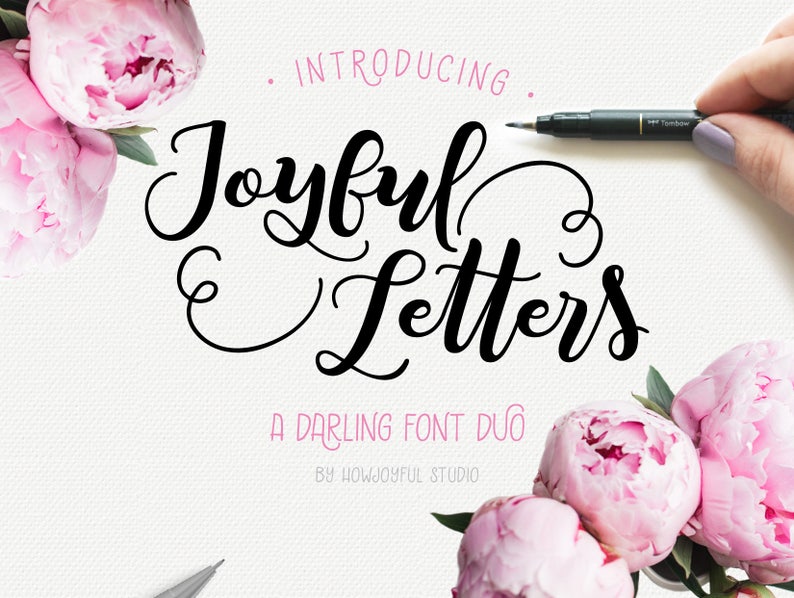
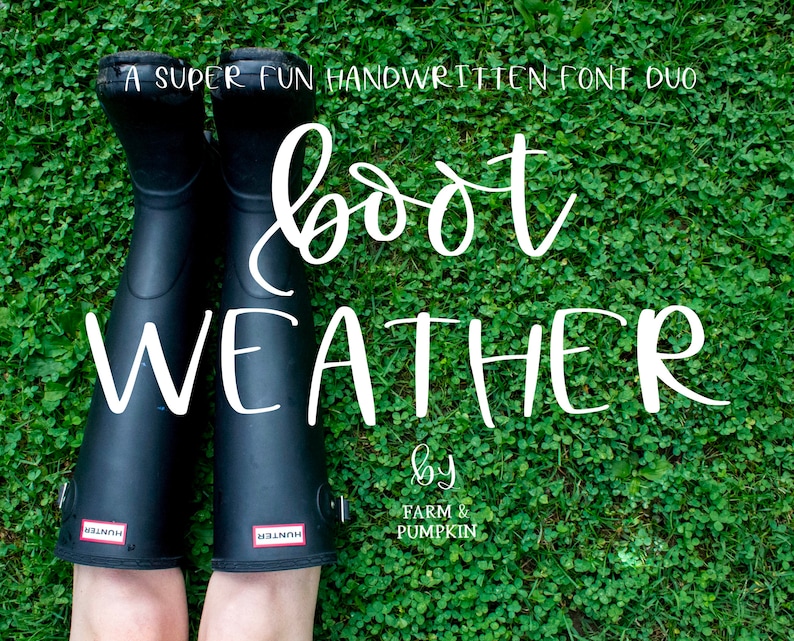
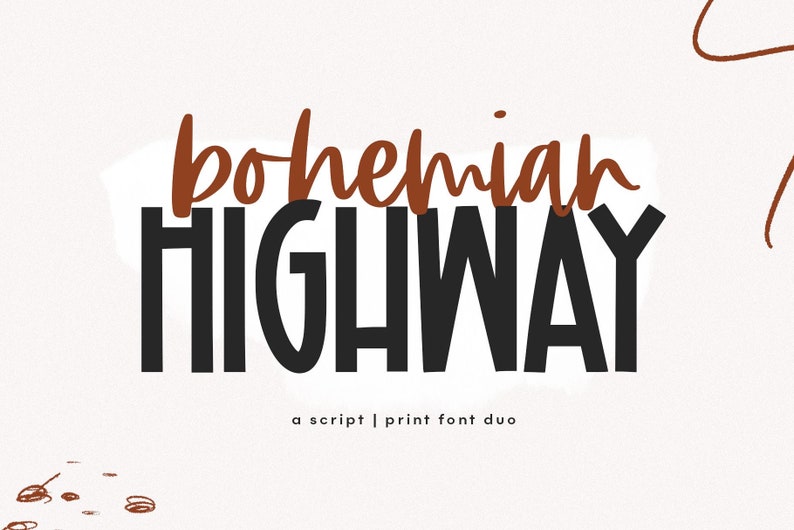
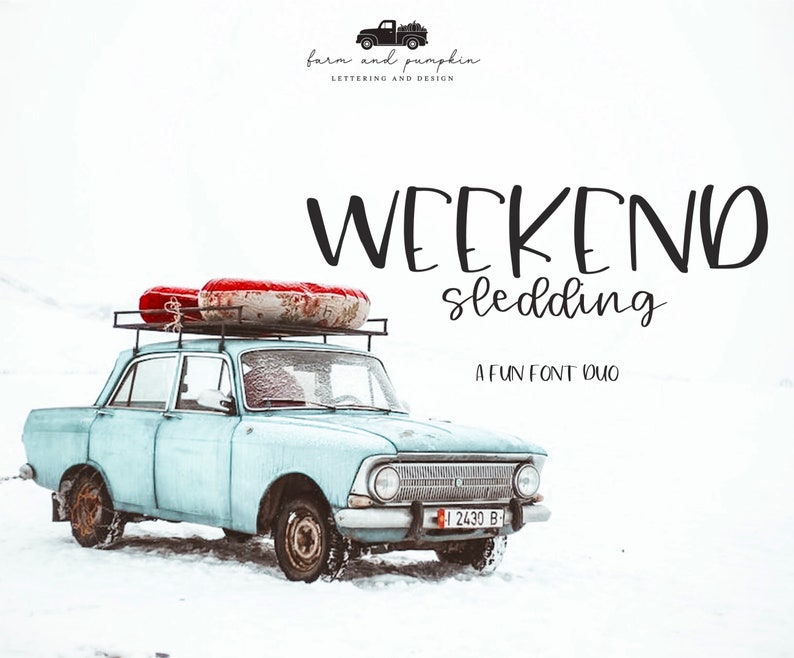
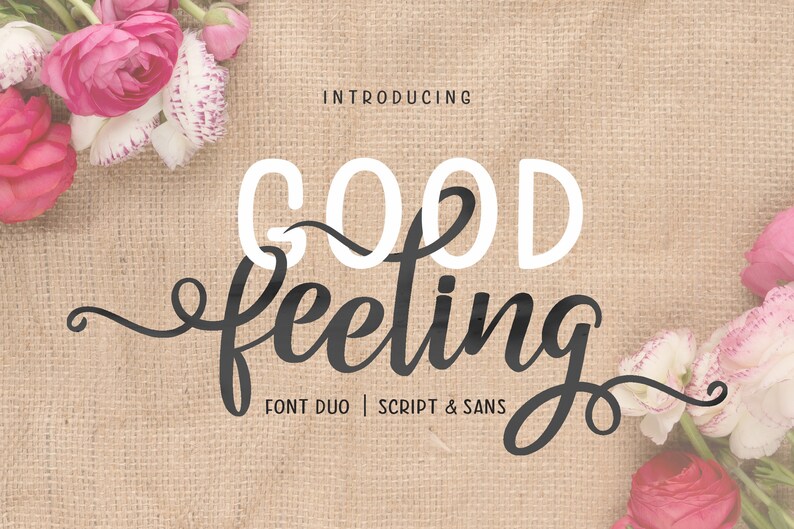
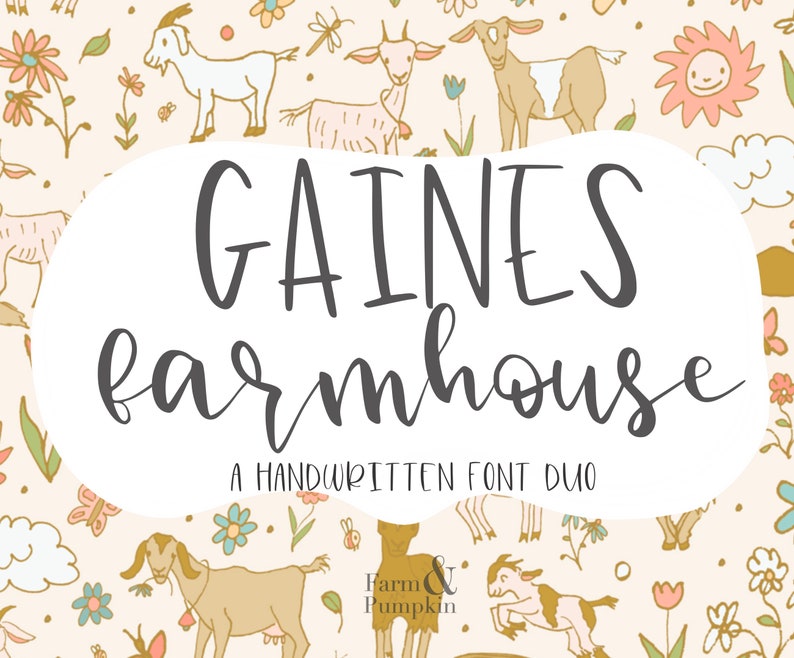
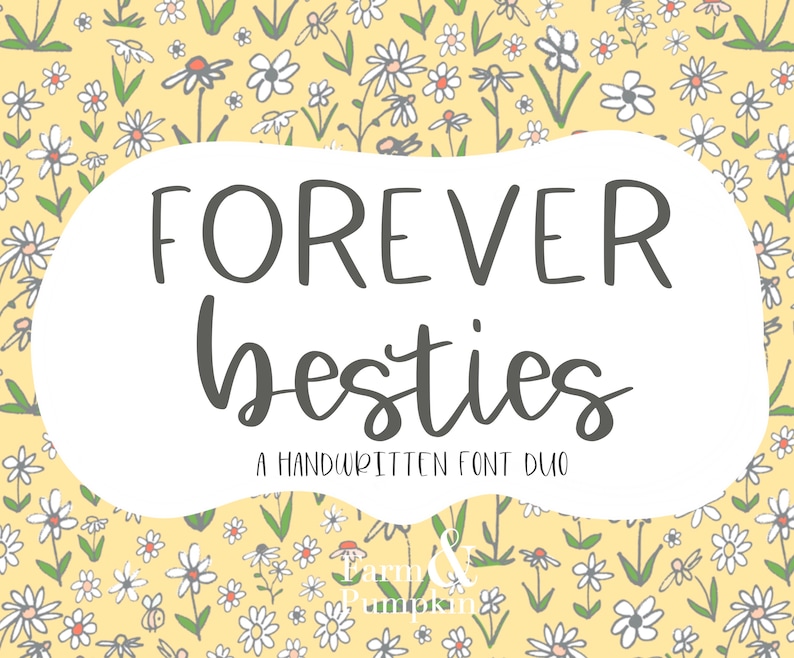
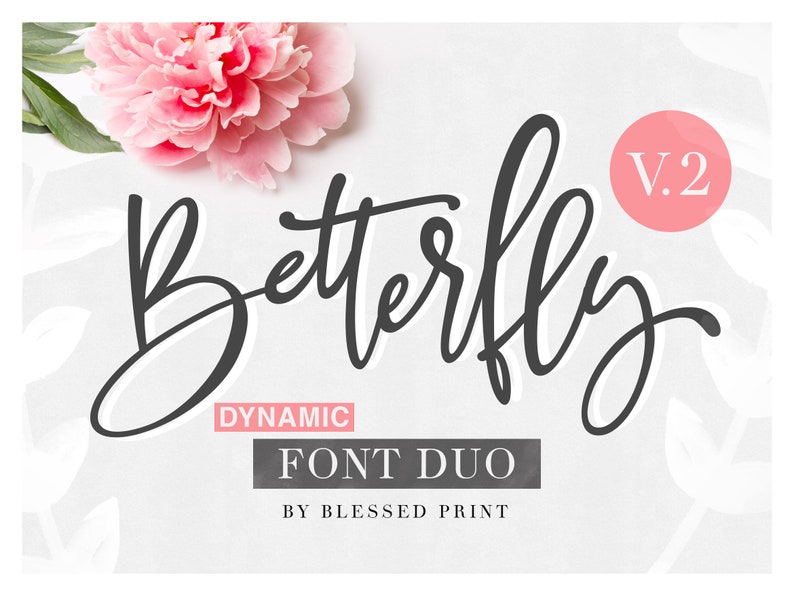
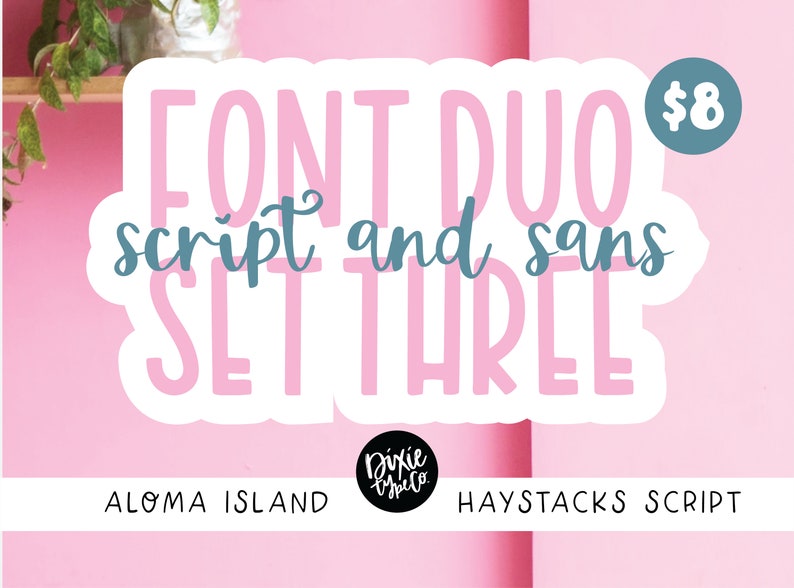
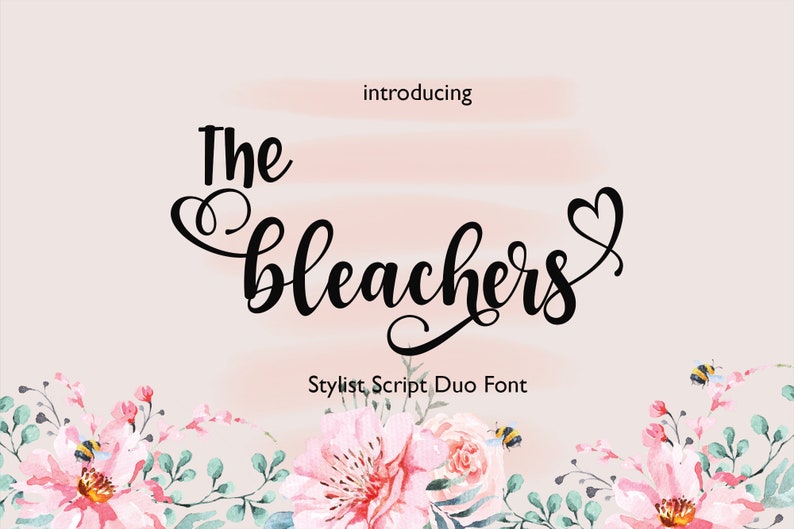
Aren’t these font duos so much fun? I hope you’ve found the perfect fonts for your next project!